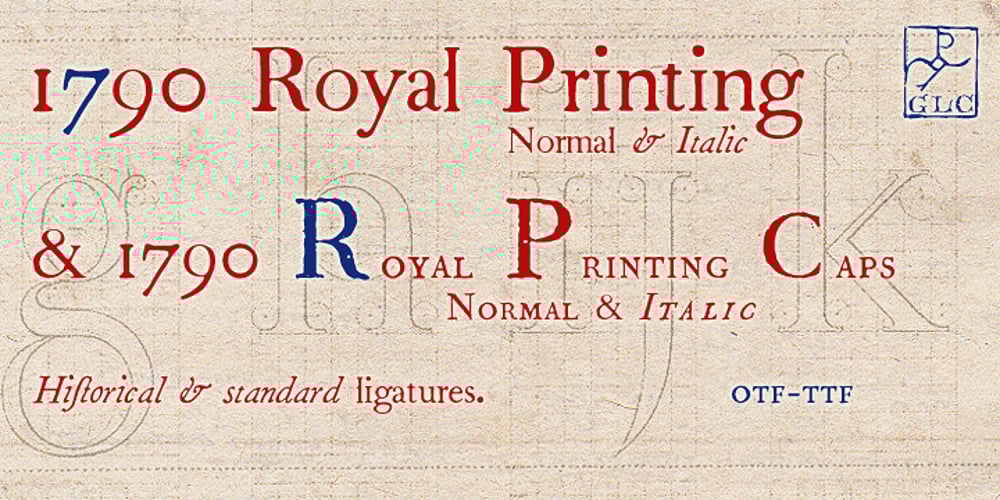
1790 Royal Printing
1790 Royal Printing font
1790 Royal Printing Font Family was designed by published by GLC. 1790 Royal Printing contains 4 styles and family package options. From 1702 to 1811 the French “Royal”, then “Imperial”, Printers, neglected Garamond and Fournier’s designs and used only the font called “Romain du Roy”, carved (1693 to 1723) by Philippe Grandjean by order of the king Louis XIV. 1790 Royal Printing was inspired by various variants of Romain du Roy that were in use during this period. Our sources were mainly official and legal documents printed in the late royal period, and in the beginning of the French revolution. There was no bold style. The 1790 Royal Printing Caps fonts contain small caps, plus titling caps for headlines as 1790 Royal Printing capitals are intended to be used preferably for text.